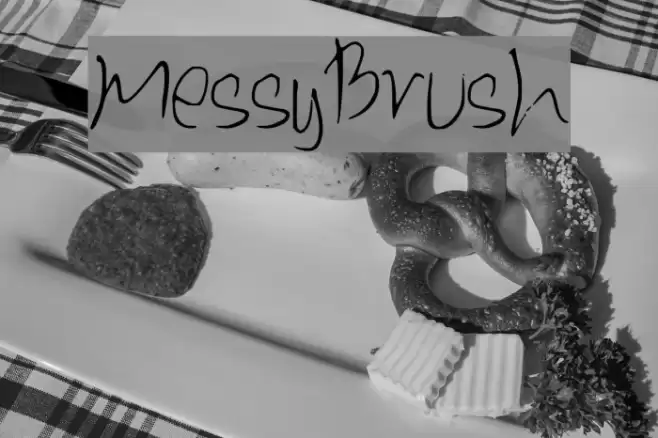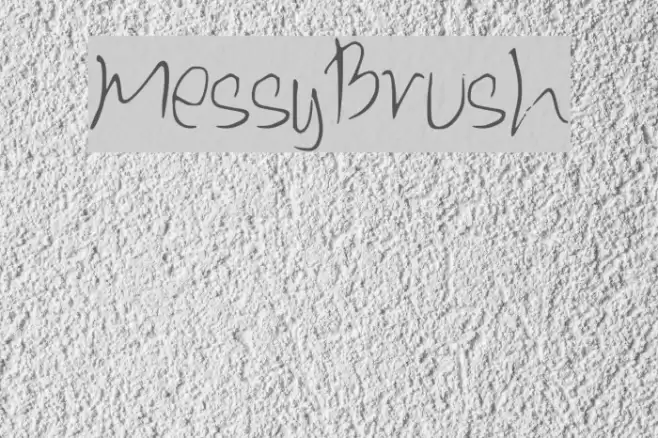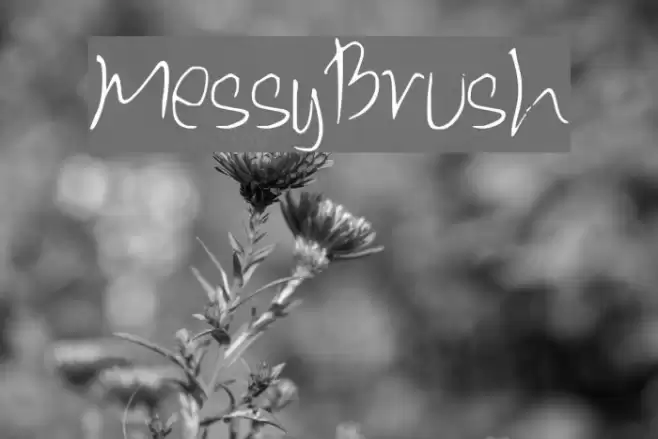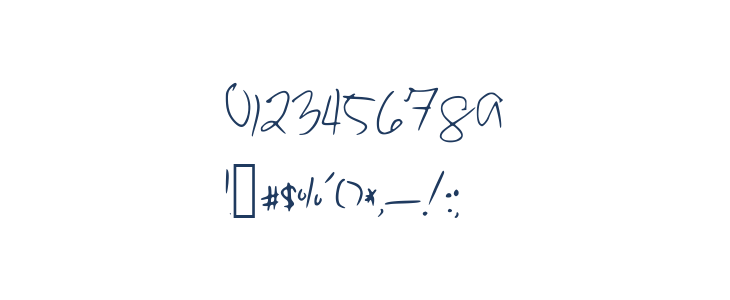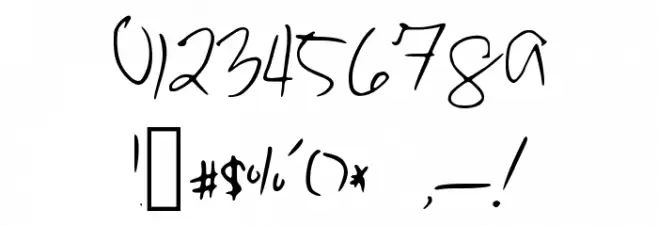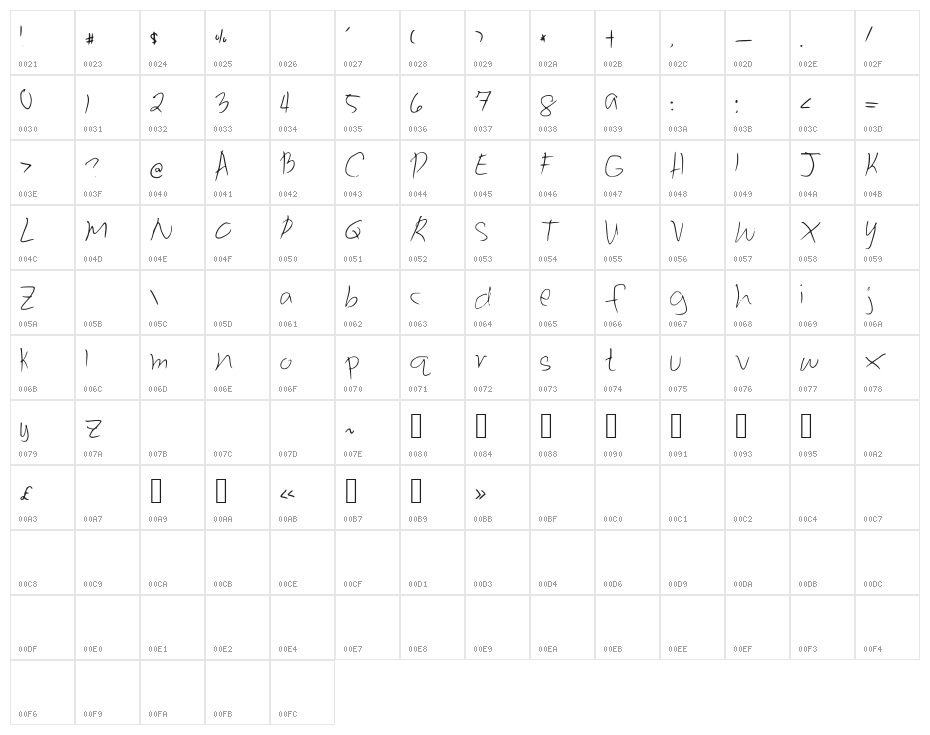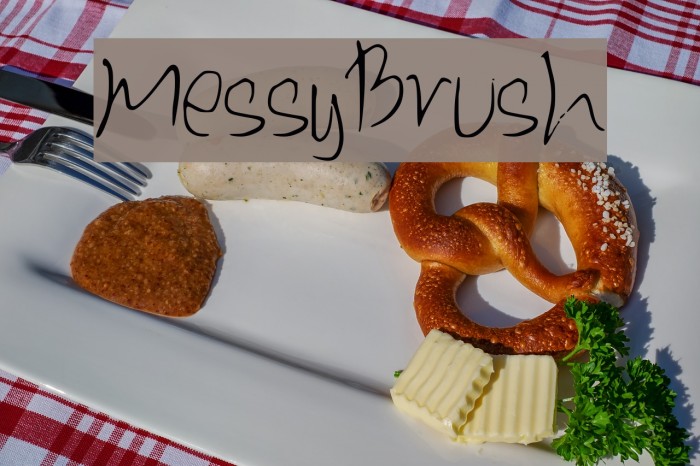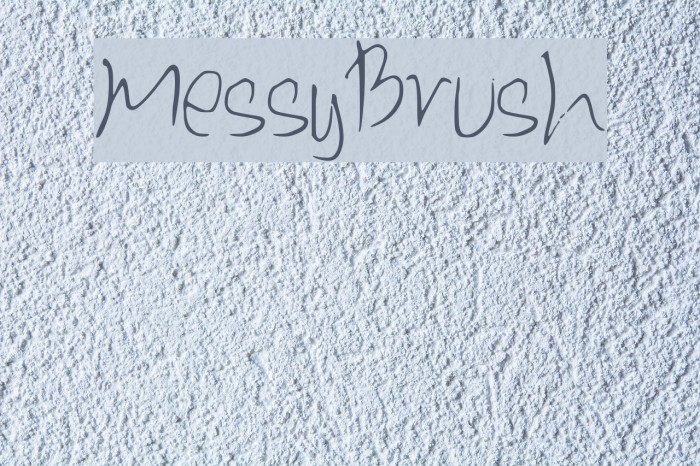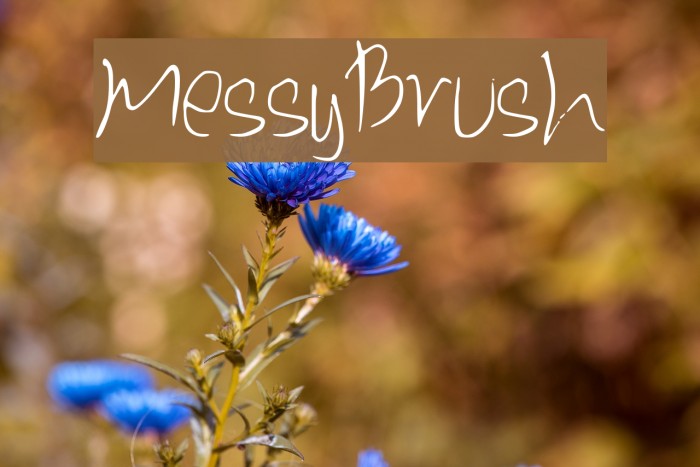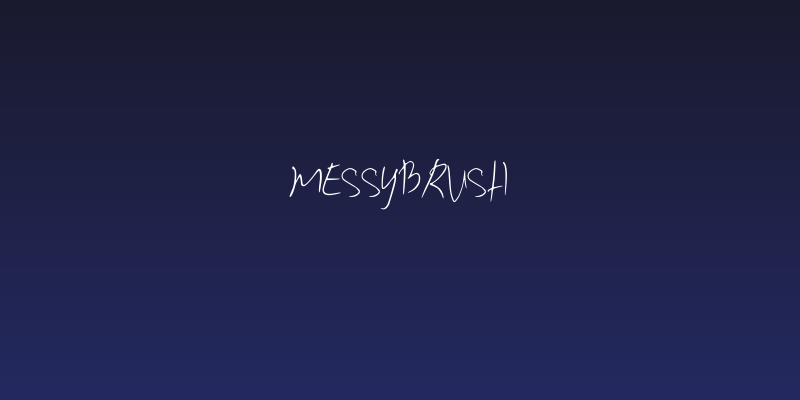
MessyBrush Font
MessyBrush Description
This font features a dynamic and expressive handwritten style, characterized by its irregular strokes and spontaneous appearance. The letters are crafted with a brush-like texture, giving them a casual and artistic feel. The uppercase and lowercase letters maintain a consistent flow, while the numbers and special characters complement the overall aesthetic. The font's unique charm lies in its imperfect lines and varied stroke widths, which add a sense of movement and personality. It's ideal for projects that require a personal touch or an informal vibe, such as creative branding, artistic posters, or playful invitations.
A dynamic, brush-style handwritten font with irregular strokes and artistic flair from Uncategorized fonts.